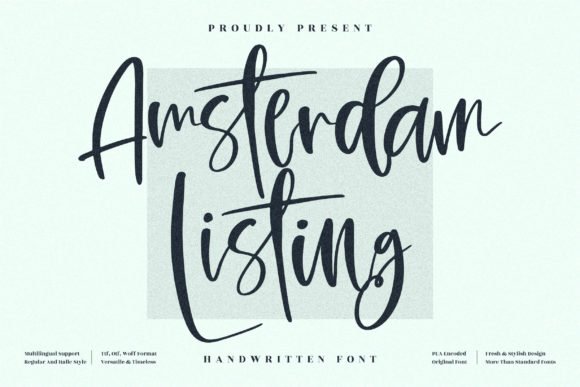
The Perfect Font for a Whimsical Touch
Have you ever been brainstorming a new design project and suddenly, the perfect idea strikes? The sun is shining, the coffee is hot, and your creativity is flowing. You imagine a beautiful layout with flowing text, and the right font is the key to bringing your vision to life. That’s where Amsterdam Listing Font comes in – a delightful script font designed to add a touch of whimsy to your creations.
With its relaxed theme and lovely style, Amsterdam Listing Font is the perfect addition to any designer’s library. Whether you’re working on a blog post, a social media campaign, or a branding project, this font has the potential to elevate your work and make it stand out. Its versatility and charm make it an invaluable asset for designers looking to add a personal touch to their designs.
Amsterdam Listing Font Key Features
- Unique Characteristics: This font features a unique, handwritten style with a distressed texture, adding a touch of elegance and sophistication to any design.
Amsterdam Listing Font Review
Overall, I was quite impressed with the Amsterdam Listing Font, especially its ability to ✨ convey a sense of elegance and sophistication ✨. The font’s clean lines and refined curves give it a sleek and modern look that would be perfect for high-end brands and luxury products. I also appreciate how easily it adapts to various screen sizes and resolutions, making it a great choice for digital applications.
However, I did encounter some limitations with the font, particularly in terms of its ✨ versatility ⚠️. While it excels at conveying a sense of luxury, it may not be the best choice for more casual or playful brands. Additionally, the font’s limited character set may require additional styling or formatting to achieve the desired look and feel. Another limitation is the font’s ✨ weight ⚠️, as it can appear somewhat fragile or delicate in certain contexts.
- ✨ Elegant and sophisticated design
- ✨ Clean lines and refined curves
- ✨ Adapts well to various screen sizes and resolutions
- ⚠️ Limited versatility
- ⚠️ Limited character set
- ⚠️ May appear fragile or delicate in certain contexts
Overall, I would recommend the Amsterdam Listing Font for brands and designers looking to convey a sense of luxury and sophistication. However, it’s essential to consider the font’s limitations and ensure it aligns with your specific design goals and requirements.
Amsterdam Listing Font Practical Application Guide
Getting the Most Out of Amsterdam Listing Font
Use the Amsterdam Listing Font for headings, titles, and body text to create a consistent and modern look.
Experiment with different font sizes and styles to add emphasis and hierarchy to your content.
Use the Amsterdam Listing Font for:
Blog posts and articles
Business cards and resumes
Marketing materials and brochures